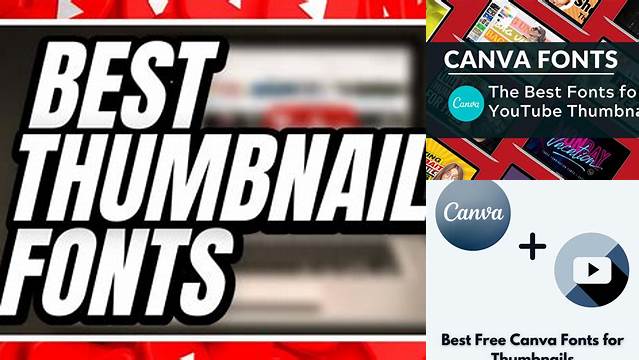
Best YouTube Thumbnail Fonts In Canva
Creating eye-catching YouTube thumbnails is crucial for attracting viewers, and the fonts you choose play a significant role in conveying your message and making a lasting impression. With Canva, you have access to a vast library of fonts, but selecting the best fonts for YouTube thumbnails can feel overwhelming. In this article, we'll explore some top font choices that will help your thumbnails stand out and entice viewers to click. We will also guide you on how to effectively utilize these fonts within Canva to create visually compelling thumbnails.
Why Font Choice Matters for YouTube Thumbnails
Font choice is paramount when crafting YouTube thumbnails because it's often the first element viewers notice. Think of your thumbnail as a mini-advertisement for your video. The fonts you use set the tone and convey the video's content, influencing whether someone clicks to watch. Imagine a thumbnail for a gaming video using a delicate, script font – it just wouldn't resonate, right? A bold, impactful font would be much more suitable. Similarly, a serious documentary wouldn't benefit from a playful, cartoonish font.
The right font enhances the visual appeal, making your thumbnail more engaging and professional-looking. A well-chosen font can also improve readability, ensuring your message is easily understood at a glance, especially on smaller screens. Clear, legible text is essential for attracting viewers, as they need to quickly grasp the video's topic. Consider the overall aesthetic of your channel and your target audience. Are you aiming for a modern, minimalist look, or something more vibrant and energetic? Your font choices should align with your brand and the style of content you create.
In addition to aesthetics, font choices also impact the perceived quality of your videos. A professionally designed thumbnail signals to viewers that your content is also high-quality. This can significantly influence click-through rates and overall engagement. Using generic or unappealing fonts can make your thumbnails look amateurish, potentially deterring viewers from clicking. Therefore, investing time in selecting the right fonts is a crucial step in optimizing your YouTube presence. Ultimately, the goal is to create thumbnails that not only capture attention but also accurately represent your video's content and entice viewers to learn more. By carefully considering font choices, you can significantly enhance your thumbnails' effectiveness and boost your channel's growth.
Top Font Categories for YouTube Thumbnails
When selecting fonts for YouTube thumbnails, it's helpful to understand the different font categories and their characteristics. Each category conveys a distinct feel, so choosing the right one can significantly impact your thumbnail's effectiveness. Let's explore some of the top font categories that work well for YouTube thumbnails.
Bold Sans-Serif Fonts
Bold sans-serif fonts are a staple for YouTube thumbnails due to their clean, modern, and highly legible appearance. These fonts lack the small decorative strokes (serifs) found in other font styles, making them appear sleek and straightforward. Their boldness ensures they stand out, even at smaller thumbnail sizes. Think of popular channels that use bold sans-serif fonts—they convey a sense of confidence and professionalism. Some excellent choices in this category include Bebas Neue, Montserrat, and Roboto. These fonts are incredibly versatile and work well for a variety of video topics, from tutorials to vlogs.
Bebas Neue is a classic choice known for its tall, condensed letters, which maximize space and create a strong visual impact. Montserrat offers a more contemporary feel with its clean lines and balanced proportions. Roboto is another highly readable option, available in a variety of weights, allowing you to add emphasis and variation to your text. When using bold sans-serif fonts, consider pairing them with a contrasting color to make them even more eye-catching against your background. This approach ensures that your text grabs attention and clearly communicates the video's topic.
Impactful Serif Fonts
While sans-serif fonts are often the go-to choice for thumbnails, impactful serif fonts can also make a strong statement. Serifs are the small strokes at the end of letters, which can add a touch of elegance or tradition. However, for thumbnails, it's crucial to choose serif fonts that are bold and easily readable. Times New Roman or Georgia are not ideal for thumbnails due to their thinner strokes, which can get lost at smaller sizes. Instead, consider fonts like Baskerville Bold or Playfair Display Bold, which offer a more substantial presence.
These bolder serif fonts can convey a sense of authority and sophistication, making them suitable for topics like documentaries, educational content, or even certain lifestyle videos. The key is to ensure that the font remains legible and doesn't appear cluttered. Pairing a bold serif font with a simpler sans-serif font can create a balanced and visually appealing design. For instance, you might use a bold serif font for the title and a sans-serif font for any supporting text. This combination adds visual interest while maintaining clarity. Remember, the goal is to capture attention and communicate your message effectively, so the font choice should support that objective.
Creative Display Fonts
For videos that aim to stand out with a unique flair, creative display fonts can be an excellent choice. These fonts are designed to be attention-grabbing and often feature distinctive shapes, styles, or decorative elements. However, it's important to use display fonts judiciously, as they can sometimes sacrifice readability for aesthetics. The goal is to choose a display font that enhances your thumbnail's visual appeal without making the text difficult to read.
Examples of popular display fonts suitable for thumbnails include Luckiest Guy, Permanent Marker, and Bangers. These fonts have a playful and energetic feel, making them ideal for videos targeting a younger audience or covering topics like gaming, comedy, or DIY projects. Luckiest Guy has a bold, cartoonish vibe, while Permanent Marker mimics the look of handwritten text, adding a personal touch. Bangers is another strong choice with its bold, comic-book-inspired design. When using display fonts, it's crucial to ensure that the text remains large and clear. Avoid using these fonts for lengthy text blocks, as they are best suited for short, impactful headlines. Pairing a creative display font with a simpler sans-serif font for any supporting text can create a balanced and eye-catching thumbnail.
Best Specific Fonts to Use in Canva for YouTube Thumbnails
Canva offers a wide array of fonts, but some consistently perform well for YouTube thumbnails due to their readability, visual impact, and versatility. Let's dive into some specific fonts available in Canva that you should consider using to make your thumbnails pop.
Bebas Neue
Bebas Neue is a font that frequently tops lists of the best fonts for YouTube thumbnails, and for good reason. This sans-serif font is known for its tall, condensed letters, which allow you to fit more text on your thumbnail without sacrificing readability. Its clean, modern appearance makes it incredibly versatile, suitable for a wide range of video topics, from tech tutorials to travel vlogs.
The strong, bold character of Bebas Neue ensures that your text stands out, even at smaller thumbnail sizes. In Canva, you can easily adjust the size, color, and spacing of Bebas Neue to create the perfect headline. Consider using a contrasting background color to make the text even more prominent. For example, white Bebas Neue text on a dark background is a classic combination that grabs attention. This font works particularly well for titles and keywords that you want viewers to immediately notice. Its popularity also means that viewers are accustomed to seeing it, making it a familiar and trustworthy choice.
Montserrat
Montserrat is another excellent sans-serif font that offers a more contemporary and sophisticated feel. Its clean lines and balanced proportions make it highly legible and visually appealing. Montserrat comes in a variety of weights, from thin to extra-bold, giving you flexibility in creating different levels of emphasis within your text. This makes it a versatile choice for various types of content, whether you're creating educational videos, lifestyle content, or product reviews.
The different weights of Montserrat allow you to create visual hierarchy in your thumbnail. For instance, you might use Montserrat Bold for your main title and Montserrat Regular or Medium for any supporting text. This helps to guide the viewer's eye and highlight the most important information. Montserrat also pairs well with other fonts, so you can combine it with a display font or a serif font for added visual interest. Its modern aesthetic makes it a great choice for channels that want to convey a sense of professionalism and style. In Canva, you can easily experiment with different sizes, colors, and styles to see how Montserrat can best enhance your thumbnail designs.
Roboto
Roboto is a widely used sans-serif font known for its clarity and readability, making it an excellent choice for YouTube thumbnails. This font was designed by Google and is optimized for use across various digital platforms, ensuring it looks great on any device. Roboto is available in multiple weights, which provides flexibility in designing your thumbnails and highlighting key information. Its clean and modern appearance makes it suitable for a wide range of video topics, from tutorials and how-to guides to vlogs and informational content.
The versatility of Roboto lies in its ability to be both functional and visually appealing. Its neutral design means it doesn’t distract from your message, while its clear letterforms ensure that your text is easily read, even at smaller sizes. Roboto Bold is particularly effective for main titles, while Roboto Regular or Medium can be used for subtitles or supporting text. In Canva, you can experiment with different color combinations and text sizes to see how Roboto can best serve your thumbnail design. Its widespread use also means that viewers are accustomed to seeing it, which can add a sense of familiarity and trust to your channel.
Luckiest Guy
For those looking to add a playful and energetic touch to their thumbnails, Luckiest Guy is an excellent choice. This display font has a bold, cartoonish vibe that makes it perfect for videos targeting a younger audience or covering topics like gaming, animation, or DIY projects. Luckiest Guy is not as versatile as sans-serif fonts like Bebas Neue or Montserrat, but it excels at creating eye-catching headlines that grab attention.
When using Luckiest Guy, it’s important to keep the text concise and ensure that it remains legible. Due to its unique style, this font is best used for short titles or keywords rather than lengthy sentences. Pair Luckiest Guy with a simpler sans-serif font for any supporting text to maintain clarity. In Canva, you can experiment with bright, contrasting colors to enhance the playful feel of this font. For example, using white Luckiest Guy text on a vibrant background can make your thumbnail pop. This font is particularly effective for channels that want to convey a fun and approachable image.
Bangers
Bangers is another bold and impactful display font that can add a comic-book-inspired flair to your YouTube thumbnails. Its strong, condensed letters make it perfect for creating attention-grabbing headlines, particularly for videos related to gaming, action, or entertainment. Bangers has a distinct style that sets it apart from more conventional fonts, making it a great choice for channels looking to stand out.
Like other display fonts, Bangers is best used sparingly and for short, punchy text. Its bold character ensures that it’s easily visible, even at thumbnail size, but it’s essential to maintain readability. Consider using a contrasting color scheme to further enhance its impact. For instance, Bangers text in a bright color against a dark background can be highly effective. Pair this font with a simpler sans-serif option for any additional text to ensure a balanced design. In Canva, you can easily experiment with different sizes and colors to see how Bangers can best amplify your thumbnail’s visual appeal. This font is a solid choice for content creators who want to inject some personality and energy into their thumbnails.
Tips for Using Fonts Effectively in Canva Thumbnails
Choosing the right fonts is just the first step in creating compelling YouTube thumbnails. How you use those fonts is equally crucial. Here are some tips for effectively utilizing fonts in Canva to ensure your thumbnails grab attention and convey your message clearly.
Prioritize Readability
The most important factor when selecting fonts for YouTube thumbnails is readability. Your text needs to be easily legible at a glance, even on small screens. Avoid overly decorative or script fonts that can be difficult to decipher. Stick to clear, straightforward fonts, especially for your main title. This is where bold sans-serif fonts often excel.
Ensure that the font size is large enough to be seen clearly. A good rule of thumb is to make your text as large as possible without it feeling cramped. Consider the color contrast between your text and the background. High contrast, such as white text on a dark background or vice versa, makes your text stand out. Use Canva’s text effects, like shadows or outlines, to further enhance readability if needed. These effects can help your text pop, especially if it's placed over a busy or colorful background. Regularly check how your thumbnail looks on different devices, particularly mobile, to ensure that the text remains clear and legible. Remember, if viewers can’t read your text, they’re less likely to click on your video.
Limit the Number of Fonts
While it might be tempting to use a variety of fonts to create a visually interesting thumbnail, it's best to limit yourself to a maximum of two to three fonts. Using too many fonts can make your thumbnail look cluttered and unprofessional. A simple approach is to choose one font for your main title and another for any supporting text.
This helps to create a clear visual hierarchy and keeps your thumbnail looking clean and cohesive. When selecting fonts to pair, aim for contrast. For example, you could use a bold display font for the title and a simpler sans-serif font for the subtitle or any additional information. Alternatively, you might pair a bold serif font with a sans-serif font for a more sophisticated look. Canva makes it easy to experiment with different font combinations, so take the time to find pairings that work well together and enhance your thumbnail’s overall design. Consistency in your font choices across your channel’s thumbnails can also help to build brand recognition, so stick with a few preferred fonts and use them regularly.
Use Hierarchy to Emphasize Key Information
Creating a visual hierarchy in your thumbnail is crucial for guiding the viewer's eye and highlighting the most important information. The fonts you choose, along with their size and placement, play a significant role in establishing this hierarchy. Start by identifying the key message you want to convey. This should be the most prominent text on your thumbnail.
Use a bold and eye-catching font for this main title, and make it larger than any other text. If you have a subtitle or supporting text, use a different font, often a simpler sans-serif option, and make it smaller than the main title. This creates a clear distinction and helps viewers quickly understand the video's core topic. Consider using different font weights to add emphasis. For example, you might use a bold weight for keywords and a regular weight for the rest of the text. Canva’s text formatting options allow you to easily adjust font sizes, weights, and styles to create the desired hierarchy. Experiment with different arrangements to see what works best for your design, ensuring that the most important information is the first thing viewers notice. Remember, a well-defined hierarchy makes your thumbnail more effective at communicating your message and attracting clicks.
Consider Your Brand and Content
Your font choices should align with your brand and the type of content you create. Think of your thumbnails as an extension of your brand identity. If your channel has a professional and polished feel, opt for clean, modern fonts like Montserrat or Roboto. If you create fun and energetic content, consider using display fonts like Luckiest Guy or Bangers. The fonts you use should reflect the tone and style of your videos.
For educational or tutorial videos, readability is paramount, so stick to clear sans-serif fonts. For gaming videos, a bold display font can help capture the excitement and energy of the game. Lifestyle channels might benefit from a more elegant serif or a stylish sans-serif font. Consider your target audience as well. What fonts will resonate with them? If you're targeting a younger audience, more playful fonts might be appropriate. For a more mature audience, a cleaner, more sophisticated font might be a better choice. Consistency is key in branding, so choose a few fonts that represent your brand and use them regularly across all your thumbnails. This helps viewers recognize your content at a glance and builds a cohesive brand image. Canva allows you to save your brand fonts for easy access, making it simpler to maintain consistency.
Test and Iterate
Creating effective YouTube thumbnails is an iterative process. Don’t be afraid to test different fonts, layouts, and color schemes to see what works best for your audience. Pay attention to your click-through rates (CTR) in YouTube Analytics. A low CTR might indicate that your thumbnails aren’t effectively grabbing attention, and your font choices could be a factor.
Experiment with different fonts and text placements to see if you can improve your CTR. A/B testing can be a valuable tool. Create two versions of your thumbnail with different fonts and see which performs better. Canva makes it easy to duplicate your designs and make small adjustments. Get feedback from others. Show your thumbnails to friends or fellow creators and ask for their opinions on the font choices and overall design. Fresh eyes can often spot areas for improvement that you might have missed. Stay updated on design trends and best practices for YouTube thumbnails. What’s working well for other creators in your niche? Use this information to inform your font choices and design strategies. By continually testing and refining your approach, you can optimize your thumbnails for maximum impact and engagement.
Choosing the best fonts for YouTube thumbnails in Canva is a crucial step in creating visually appealing and effective thumbnails. By understanding the different font categories, exploring specific font options within Canva, and following effective usage tips, you can create thumbnails that grab attention and entice viewers to click. Remember to prioritize readability, limit the number of fonts, use hierarchy to emphasize key information, align your font choices with your brand, and continually test and iterate your designs. With the right fonts and a creative approach, your thumbnails will stand out and help you grow your YouTube channel.